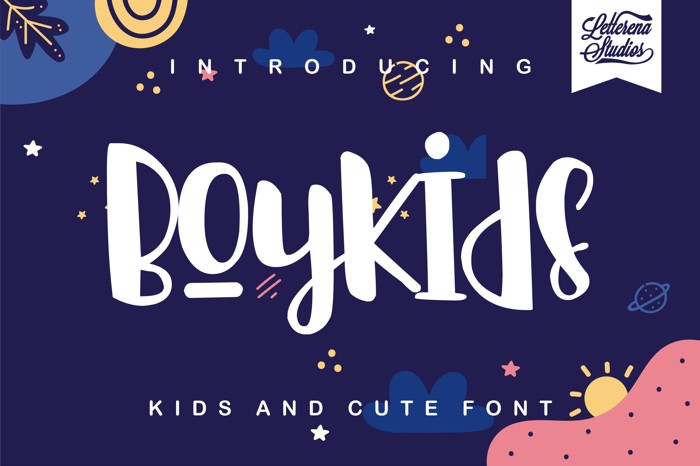
Boykids Font
Boykids - Kids And Cute Font Font, from Letterena, is a signature calligraphy font, suitable for any projects such as: logos, branding projects, homeware designs, product packaging, mugs, quotes, posters, shopping bags, t-shirts, book covers, name card, invitation cards, greeting cards, label, photography, watermark, special events, and all your other lovely projects that need a beautiful calligraphy taste.